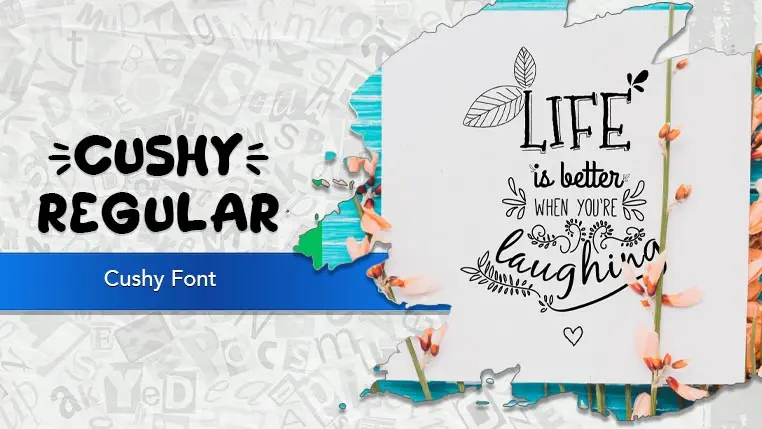
The Cushy font family may be ideal for you if you enjoy working on an artistic design project. The lively, expressive look of this typeface, which was created by Khurasan, makes it ideal for Greeting Cards and Invitations, Social Media Graphics and Quotes. Its cute and whimsical style is highly appealing for content aimed at Children's Books and Products. You can also use on custom t-shirts, mugs, or stationery. and other light-hearted visual projects.
Regular are the one primary font styles of the Cushy font family. You may build dynamic, visually appealing text layouts with the distinct flair that each style offers. With crisp, readable lines and a relaxed tone.